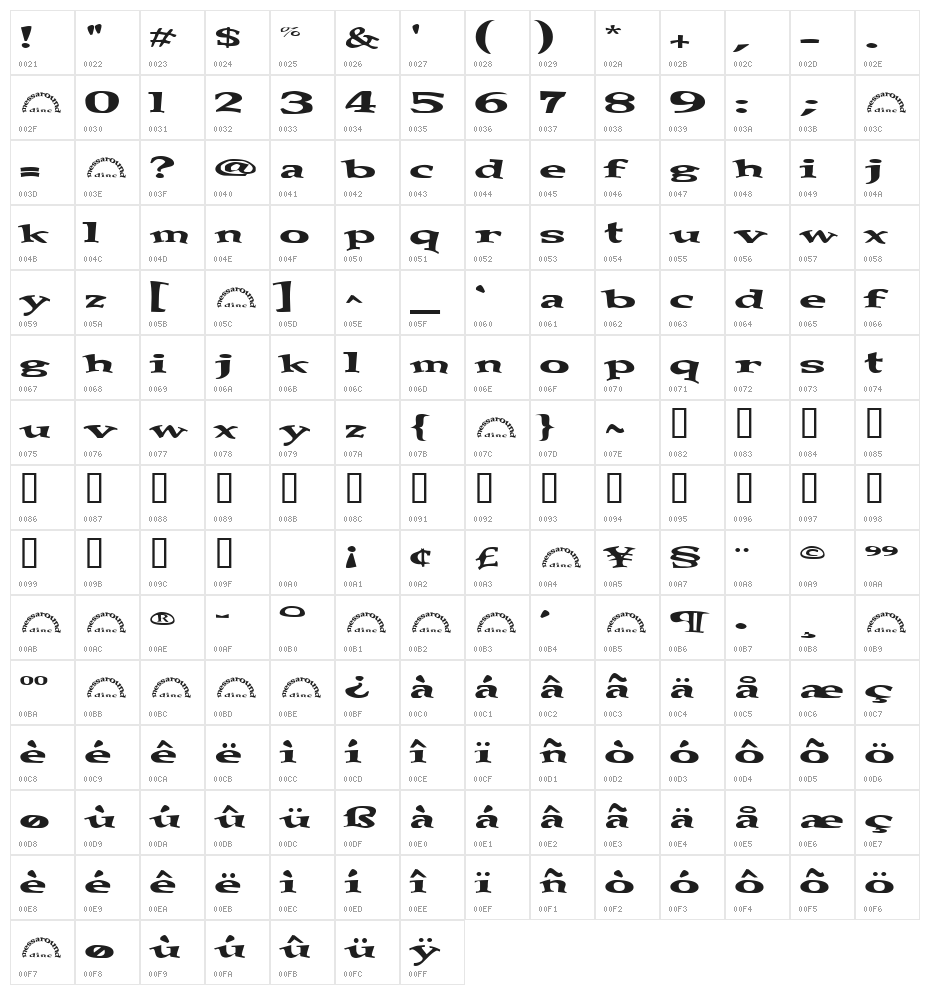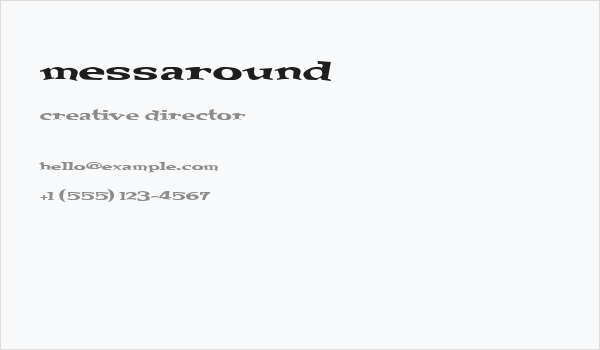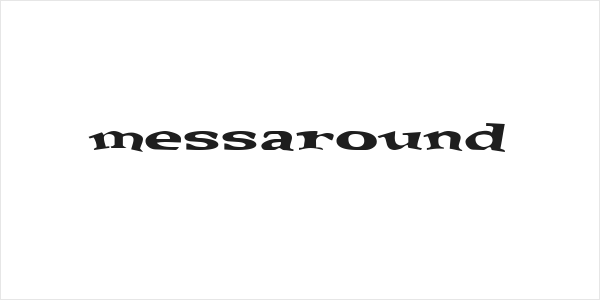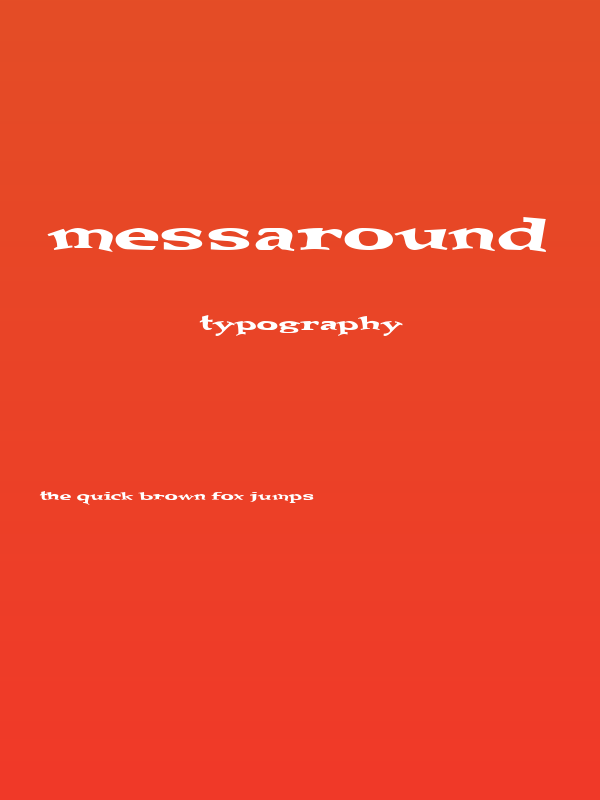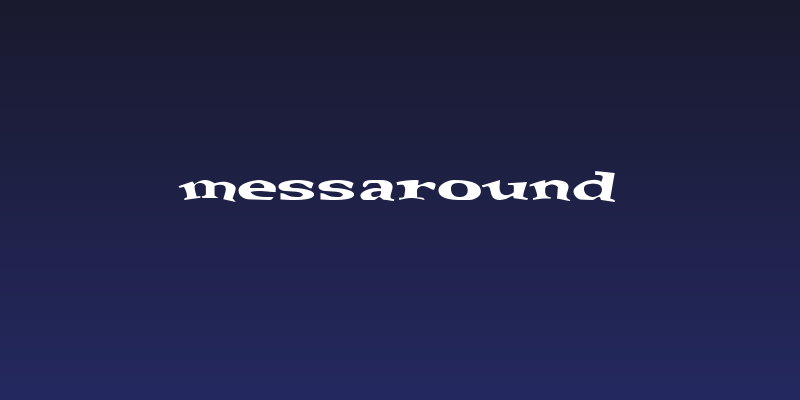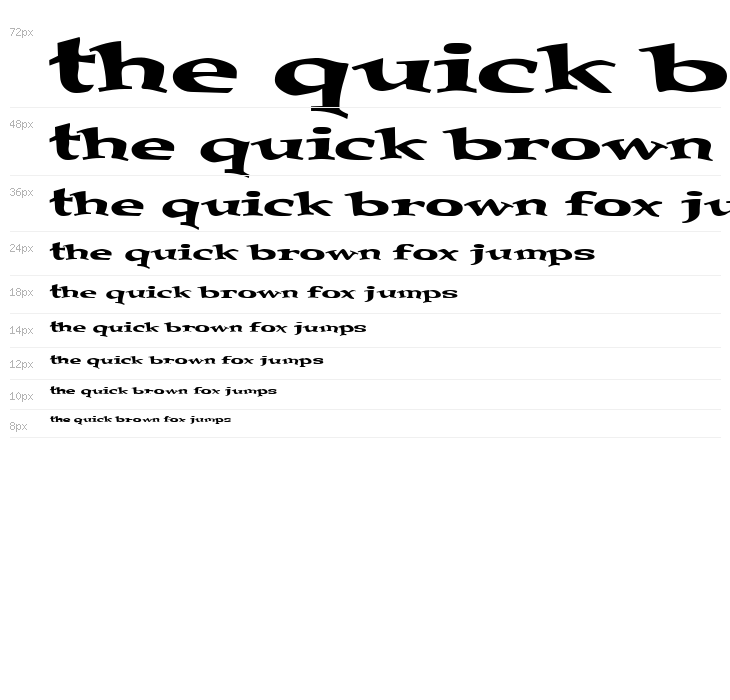
messaround Font
messaround Description
This font features a bold and playful design with exaggerated curves and a whimsical flair. The characters are uniquely styled with a dynamic flow, making them stand out with a sense of movement. The uppercase and lowercase letters share a consistent style, while the numbers are bold and rounded. Special characters maintain the playful essence, adding to the font's overall charm. The font's distinctive appearance makes it suitable for creative and artistic projects, where a touch of fun and personality is desired.
| Overall Style | Playful, Whimsical, Artistic |
| Proposed Projects | Ideal for children's books, playful branding, creative posters, and artistic designs. |